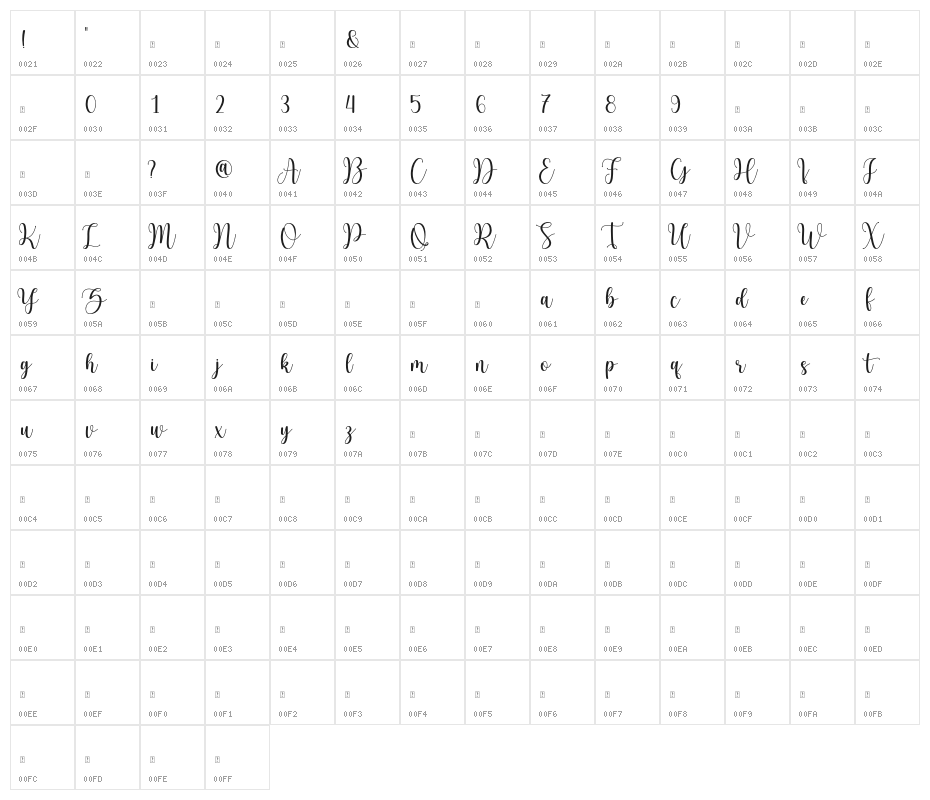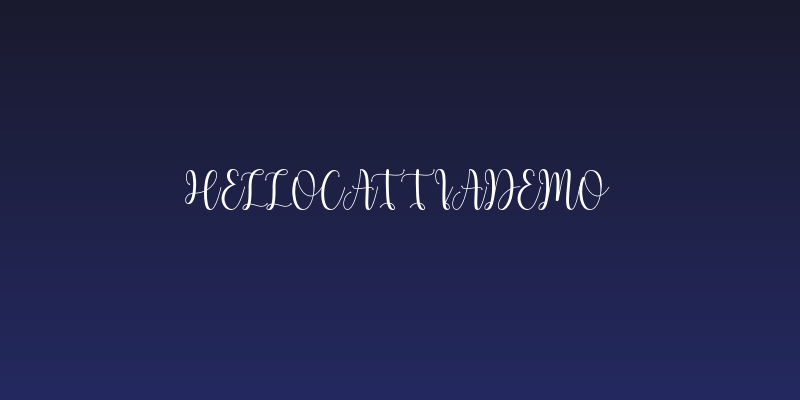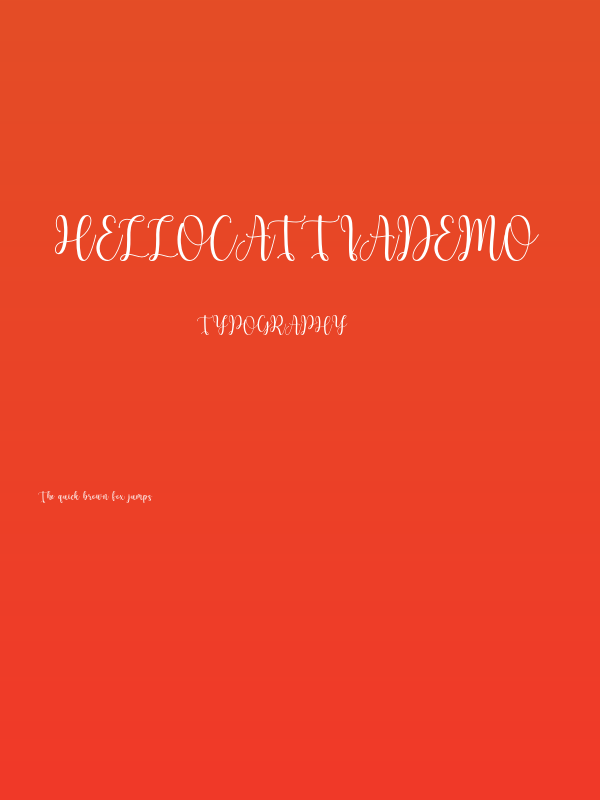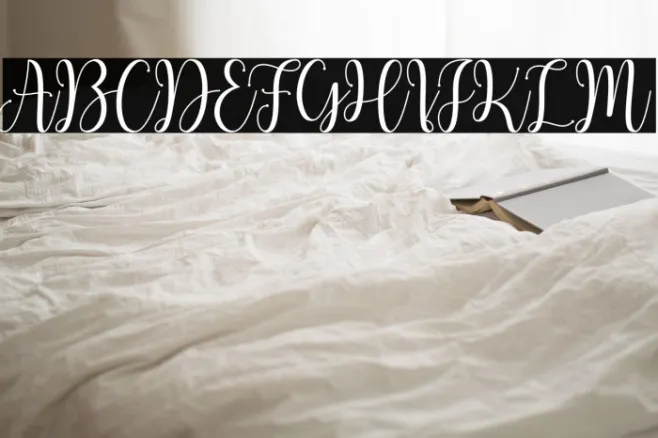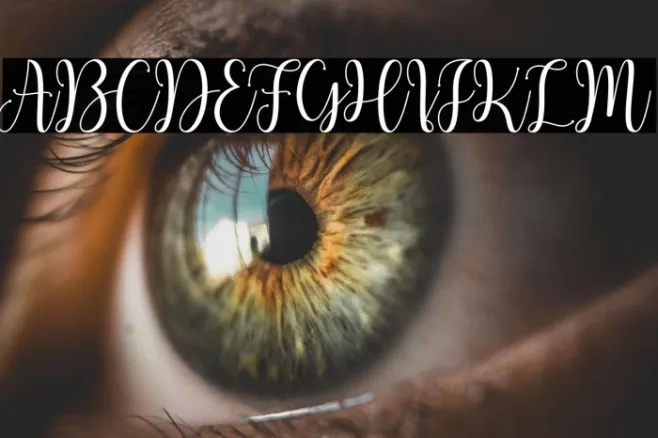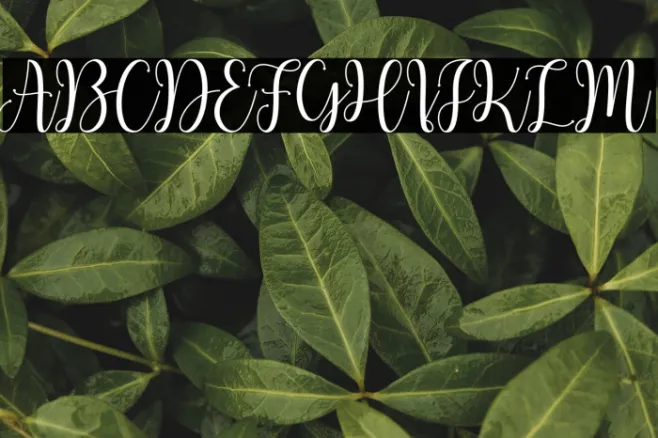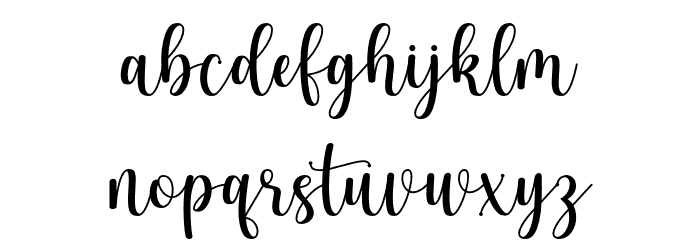
HelloCattiaDemo Font
HelloCattiaDemo Description
This font features a charming and elegant script style with flowing, connected letters that exude a sense of sophistication and grace. The uppercase letters are particularly ornate, with intricate loops and swirls that add a decorative flair. The lowercase letters maintain a consistent style, offering a smooth and harmonious appearance. The numerals are clear and legible, complementing the overall aesthetic. Special characters are included, enhancing the font's versatility for various design needs. This font is ideal for projects that require a touch of elegance and creativity.
| Proposed Projects | Ideal for wedding invitations, branding, greeting cards, and elegant packaging designs. |